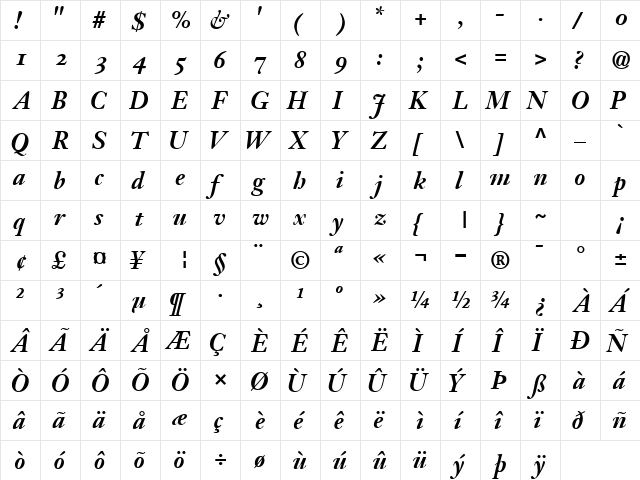
JansonOSSSK Bold
Design Context for JansonOSSSK Typeface
JansonOSSSK is a composed and adaptable typeface that performs quietly and consistently across a wide range of design contexts. Its bold stroke weight gives it real presence on the page.